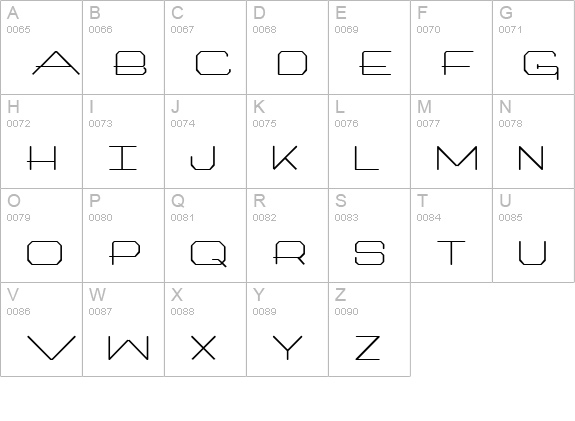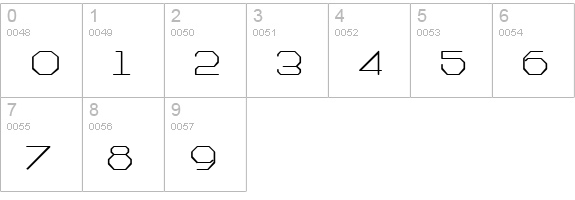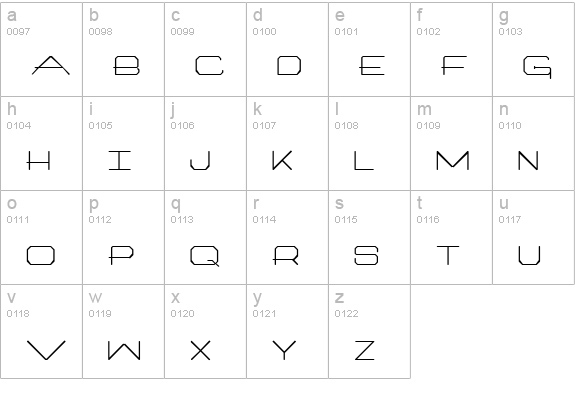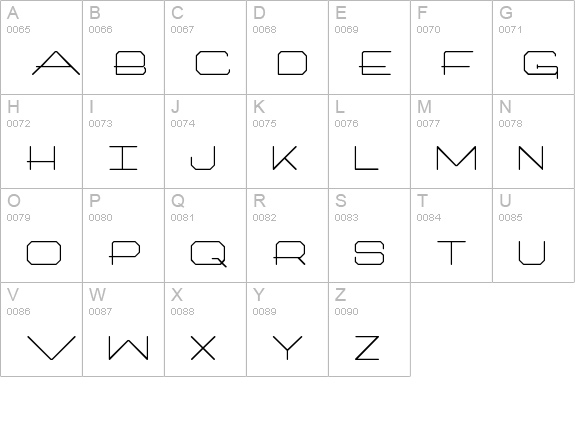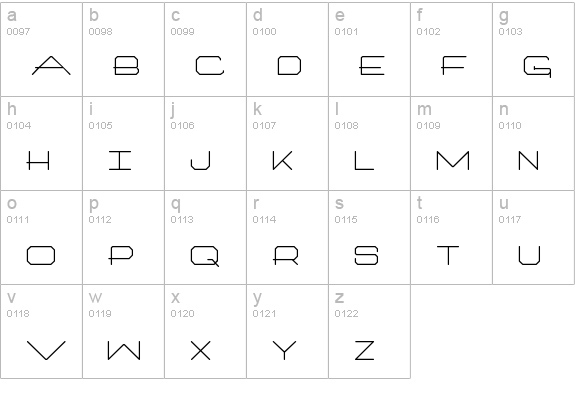
Extreme Font Details
Extreme font is a bold and daring typeface that exudes a sense of power and strength. With its sharp edges and striking design, Extreme font is perfect for creating eye-catching headlines and attention-grabbing designs. This font is sure to make a statement and leave a lasting impression on your audience. The best part? Extreme font is available for free download at FontsMarket.com. Whether you're working on a poster, logo, or any other design project, this font will add a touch of excitement and energy to your work. Don't miss out on the opportunity to enhance your designs with Extreme font today!